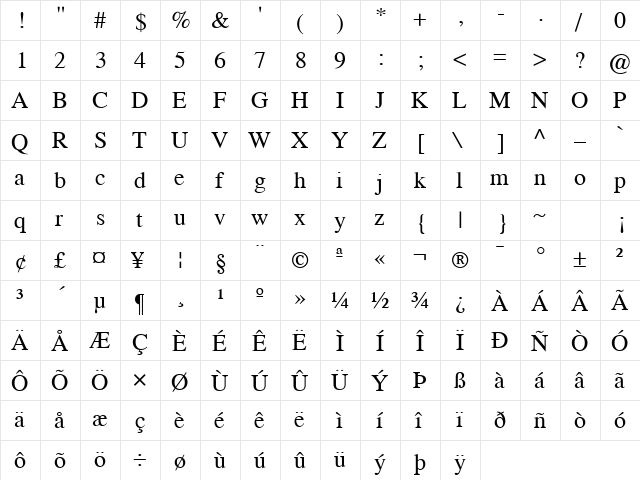
TempsSH Roman
Design Context for TempsSH Typeface
TempsSH is a composed and adaptable typeface that performs quietly and consistently across a wide range of design contexts.